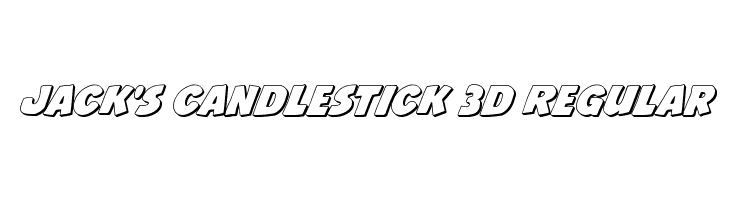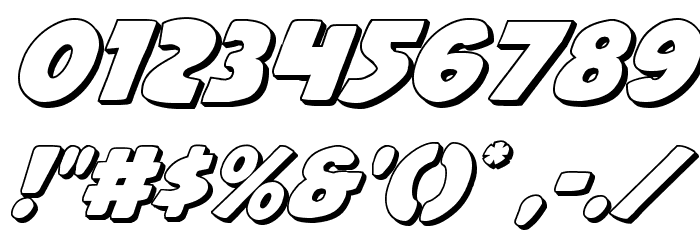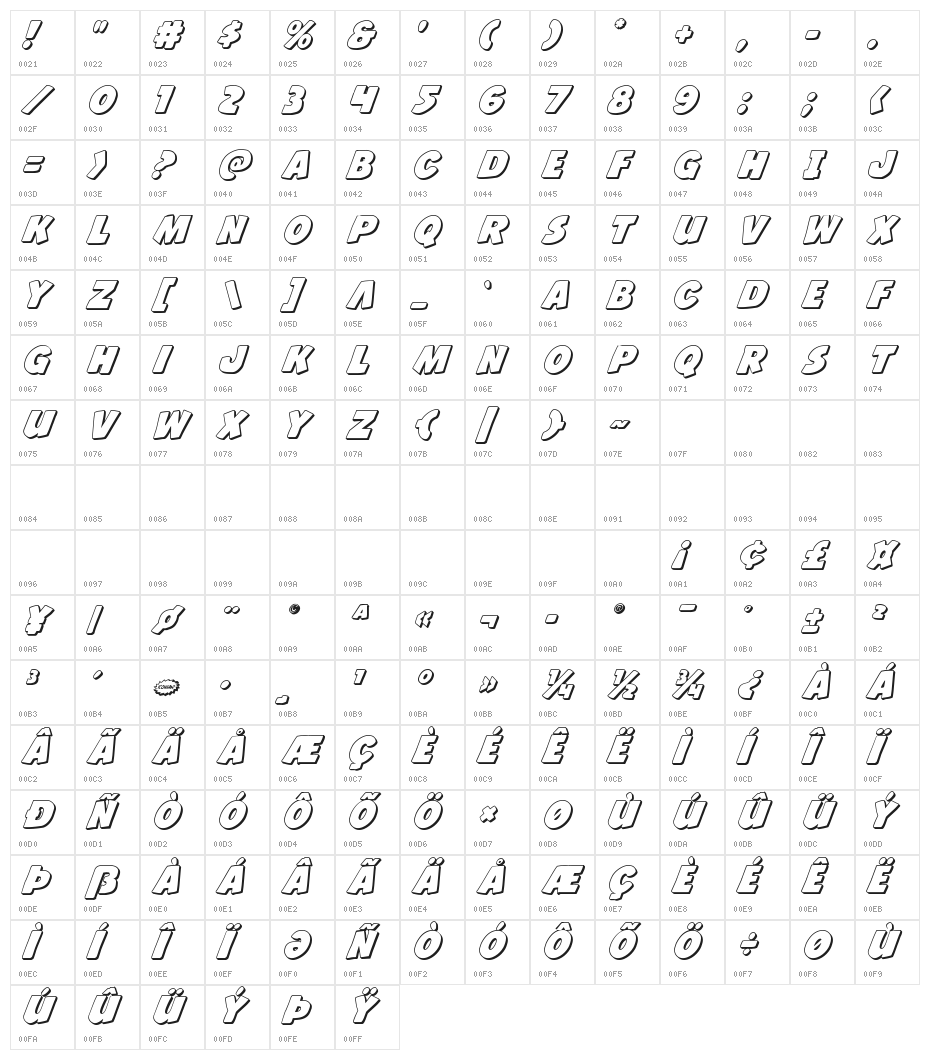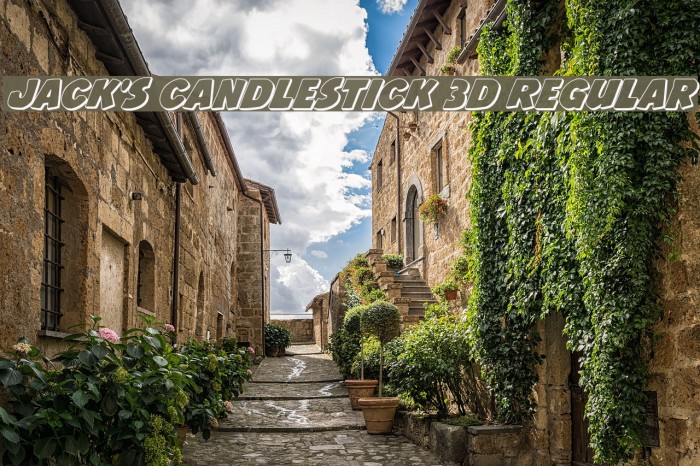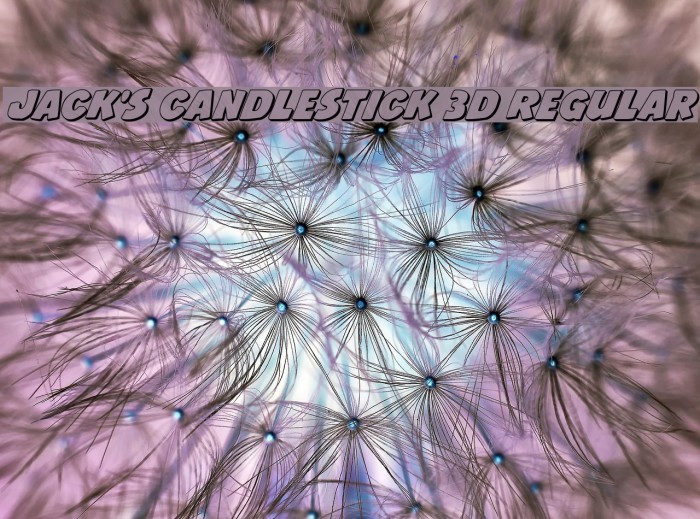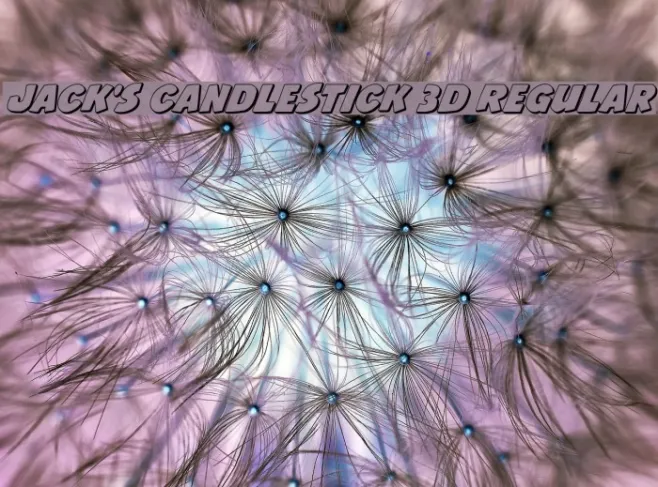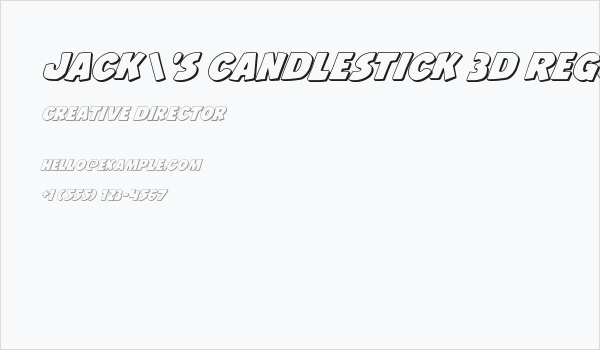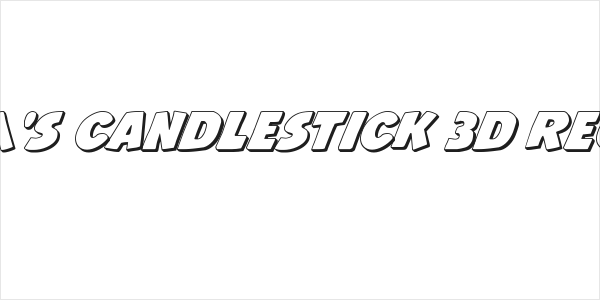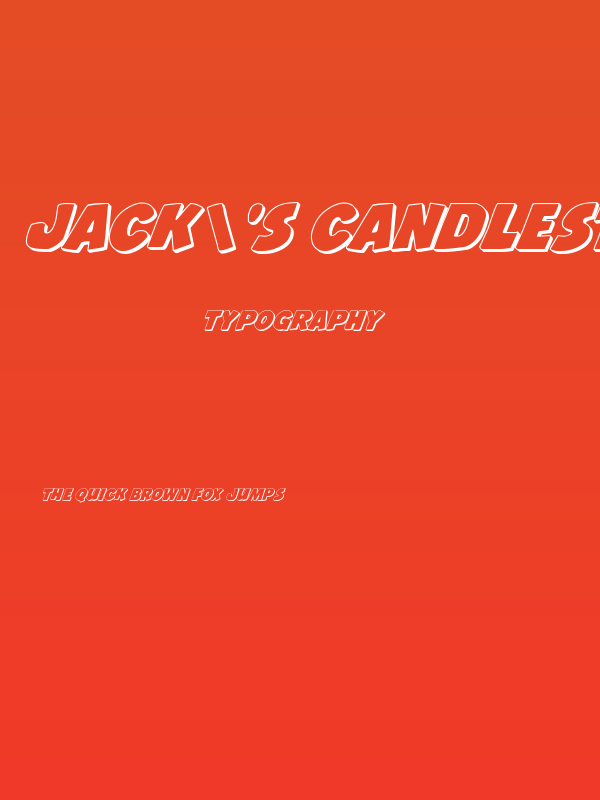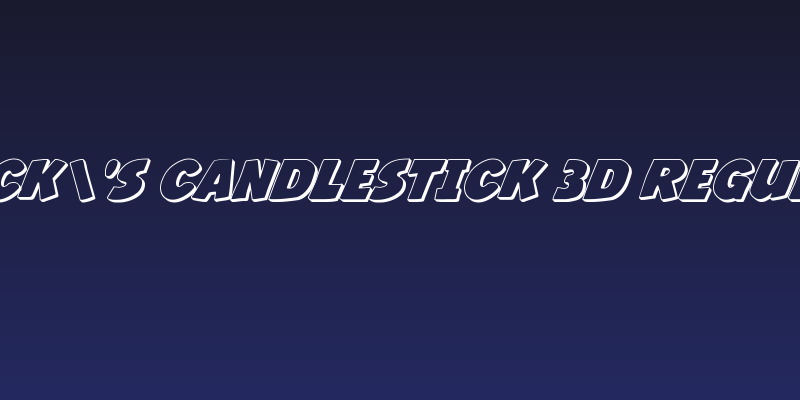
Jack's Candlestick 3D Regular Font
Jack's Candlestick 3D Regular Description
This font features a bold, three-dimensional style with a playful and dynamic appearance. The letters are uppercase and have a thick outline that gives them a shadow effect, enhancing the 3D illusion. The characters are slightly slanted, adding a sense of movement and energy. The font is well-suited for attention-grabbing designs, with its strong presence and unique style. The numbers and special characters maintain the same bold and outlined characteristics, ensuring consistency across all elements.